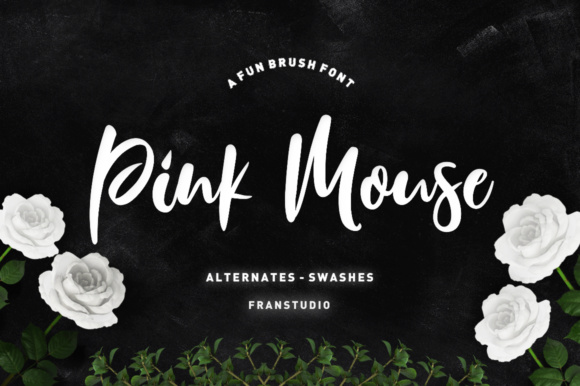
Introducing Pink Mouse Script – A Typographic Masterpiece That Will Elevate Your Designs!
Step into a world of charm and grace with Pink Mouse Script, a mesmerizing calligraphy font that oozes elegance and sophistication. This modern font, crafted by the talented hands of Franstudio, features smooth lines, a varying baseline, and a touch of playful charm that will add a touch of timeless beauty to your creative endeavors.
With Pink Mouse Script at your disposal, you'll be able to elevate your designs to new heights. Its classic and elegant style will bring a touch of refinement to your headings, signatures, logos, wedding invitations, and more. Whether you're a seasoned designer or just starting, Pink Mouse Script is the perfect font to add a dash of sophistication to your projects.
Imagine your designs adorned with the graceful strokes of Pink Mouse Script – a font that commands attention without overpowering your message. Its versatility allows it to blend seamlessly into a wide range of design styles, making it an indispensable tool for any creative professional.
So, if you're ready to take your designs to the next level, embrace the allure of Pink Mouse Script. With its timeless charm and versatility, this font will quickly become your go-to choice for adding a touch of elegance and refinement to your creations. Download Pink Mouse Script today and unlock a world of creative possibilities!